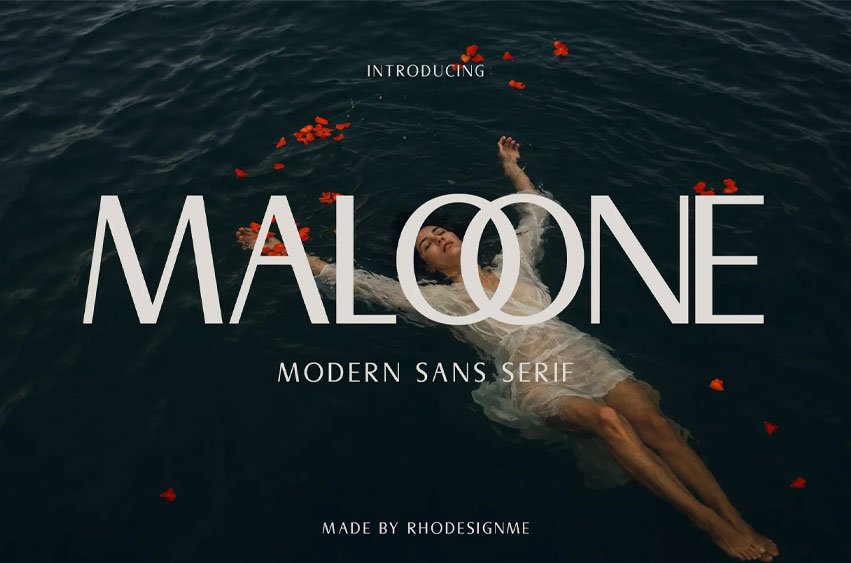
Maloone Font is an elegant, modern sans-serif typeface designed with balance, clarity, and style. Blending slim geometric proportions with artistic decorative elements, this font strikes the perfect harmony between contemporary minimalism and high-end aesthetic appeal.
With its clean lines, extended letterforms, and standout interlinking ligatures (like its signature overlapping double “O”), Maloone is tailored for luxury branding, editorial layouts, boutique logos, aesthetic packaging, cosmetics marketing, fashion magazine covers, and timeless visual identity systems. The font includes both uppercase and lowercase sets, alongside custom ligatures and multilingual characters that give your typography a refined, bespoke touch.
Maloone is built to help designers create sophisticated, memorable headlines and branding with effortless grace. Whether you are designing for high-end editorial print or modern digital platforms, this font provides a clean, understated, and timeless aesthetic.
Features
- Uppercase Characters
- Lowercase Characters
- Elegant Custom Ligatures
- Modern, Minimalist Sans-Serif Style
- Slender Geometric Letterforms
- Full Numeral & Punctuation Set
- Comprehensive Multilingual Accents